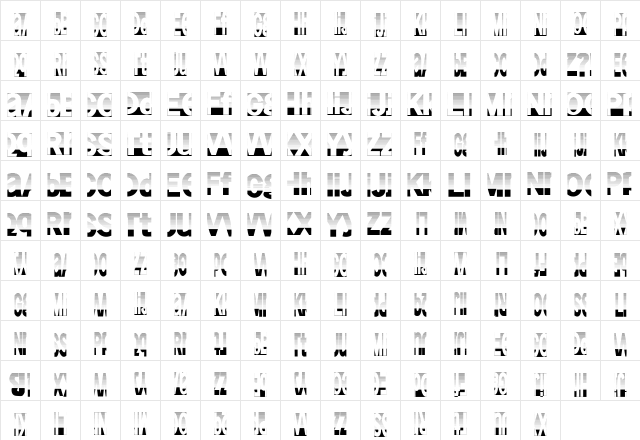
FriendlyFireDust Regular
Design Context for FriendlyFireDust Typeface
FriendlyFireDust is a composed and adaptable typeface that performs quietly and consistently across a wide range of design contexts.